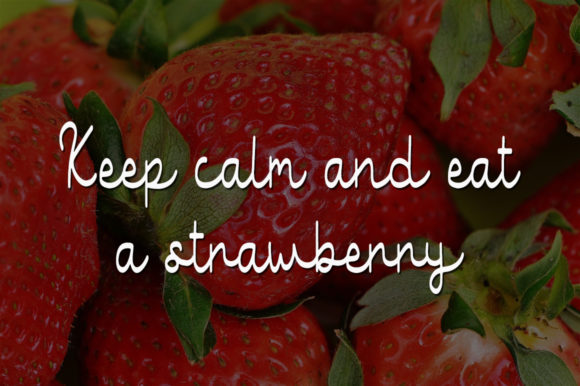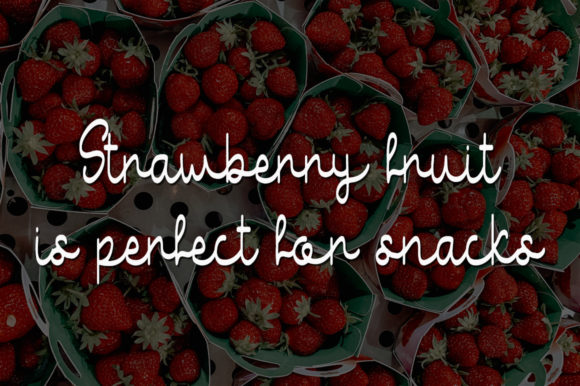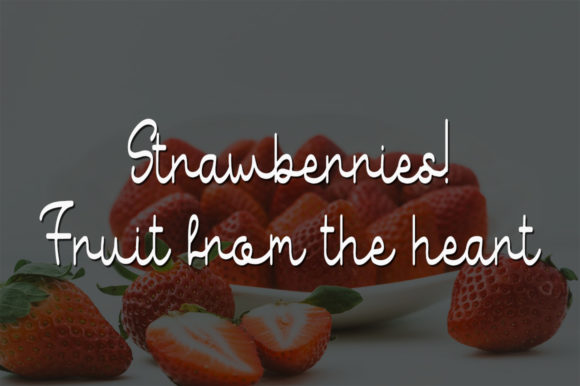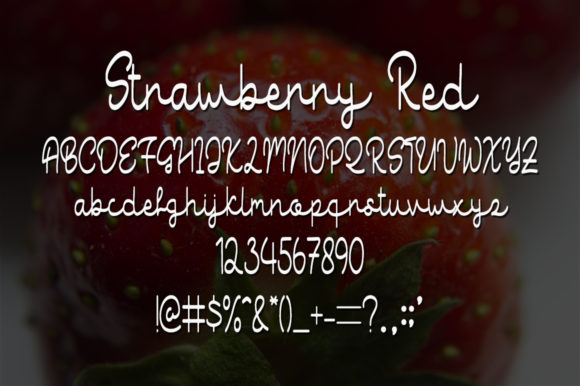
About Strawberry Red Font
Strawberry Red is a sweet and cursive handwritten font. It has beautiful and round letters and is the ideal choice for your personalized designs. Add it confidently and you will love the outcome.